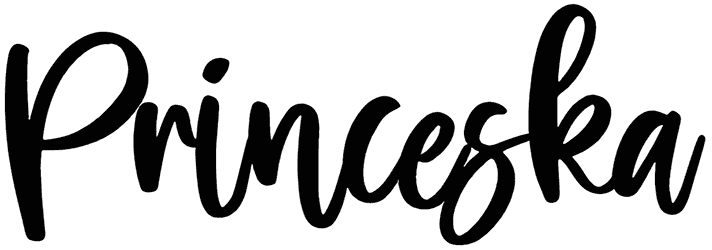
Princeska Font
If you need a handsome font, the Princeska can be an appropriate choice, offered in two versions. This marker font has a charismatic personality that grabs attention at first glance.
You may use the Princeska font in several situations, such as business cards, postcards, and prints on clothing. This handwritten font’s letters have a curvy shape with smooth edges that send a friendly vibe. Moreover, their tails are thinner than their bodies, making it a popular style.